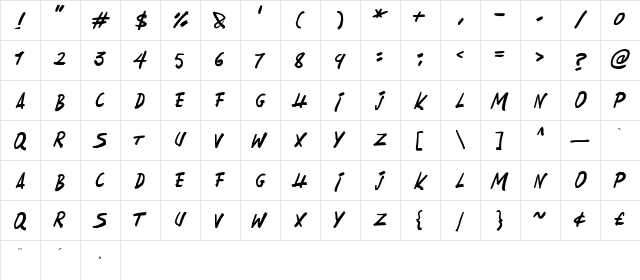
HackatTack Regular Font Preview
HackatTack Regular
Design Context for HackatTack Typeface
HackatTack is a composed and adaptable typeface that performs quietly and consistently across a wide range of design contexts.